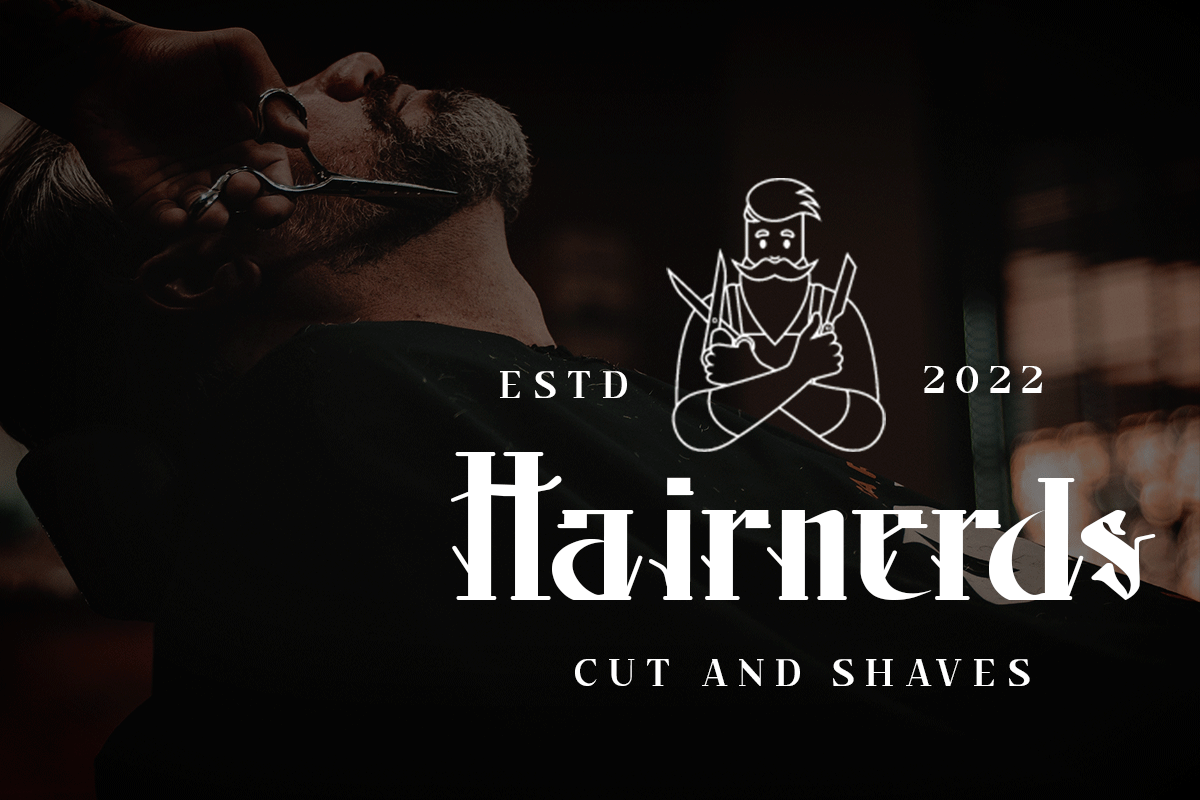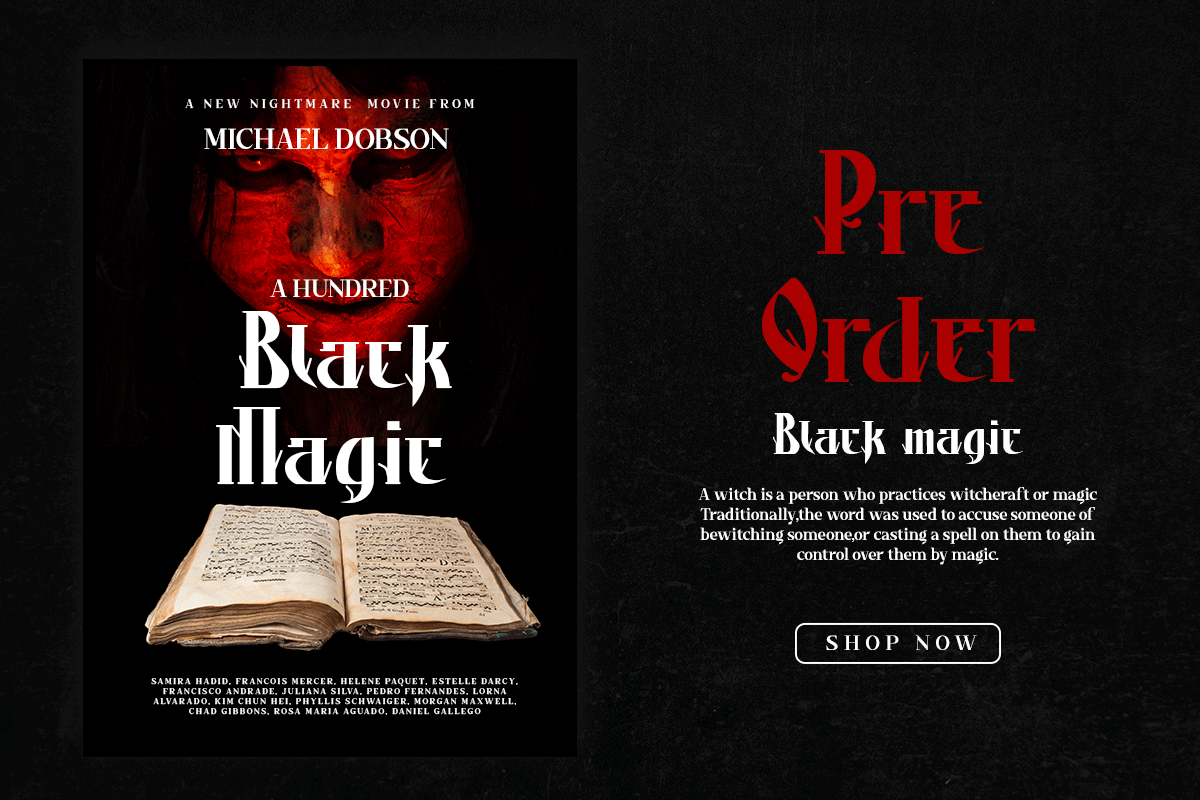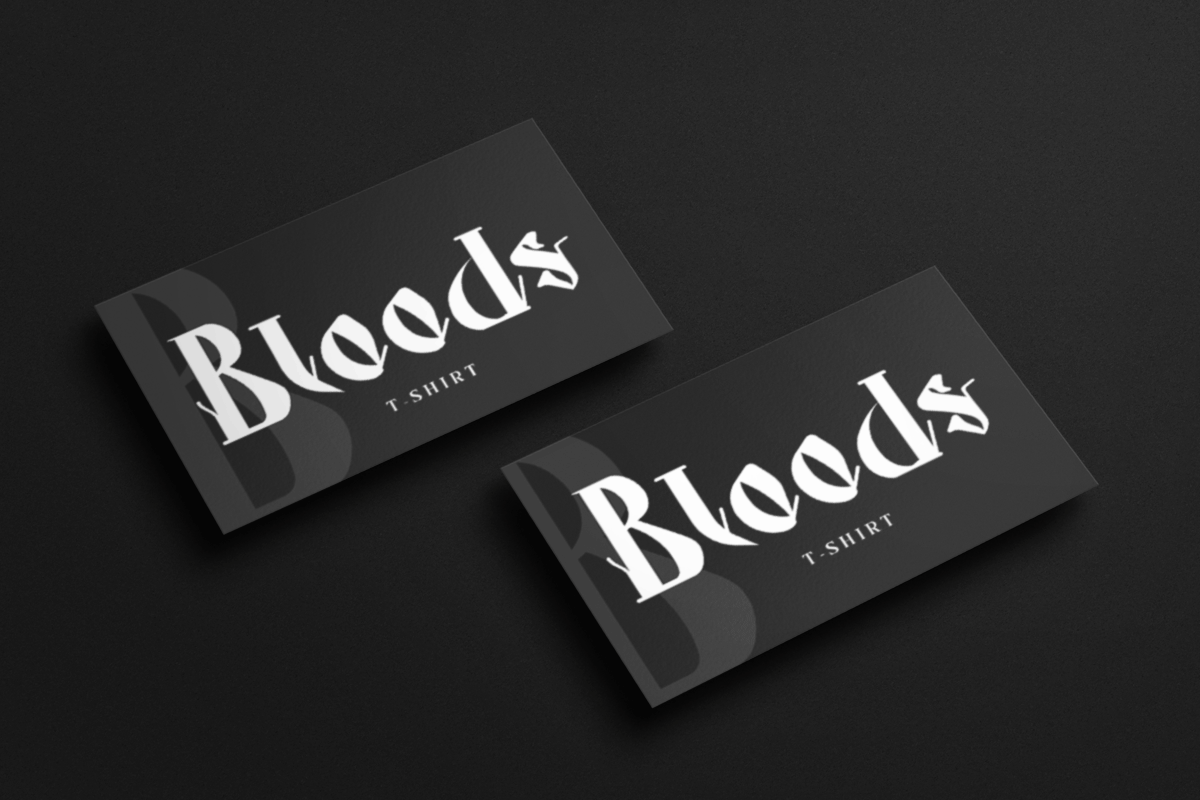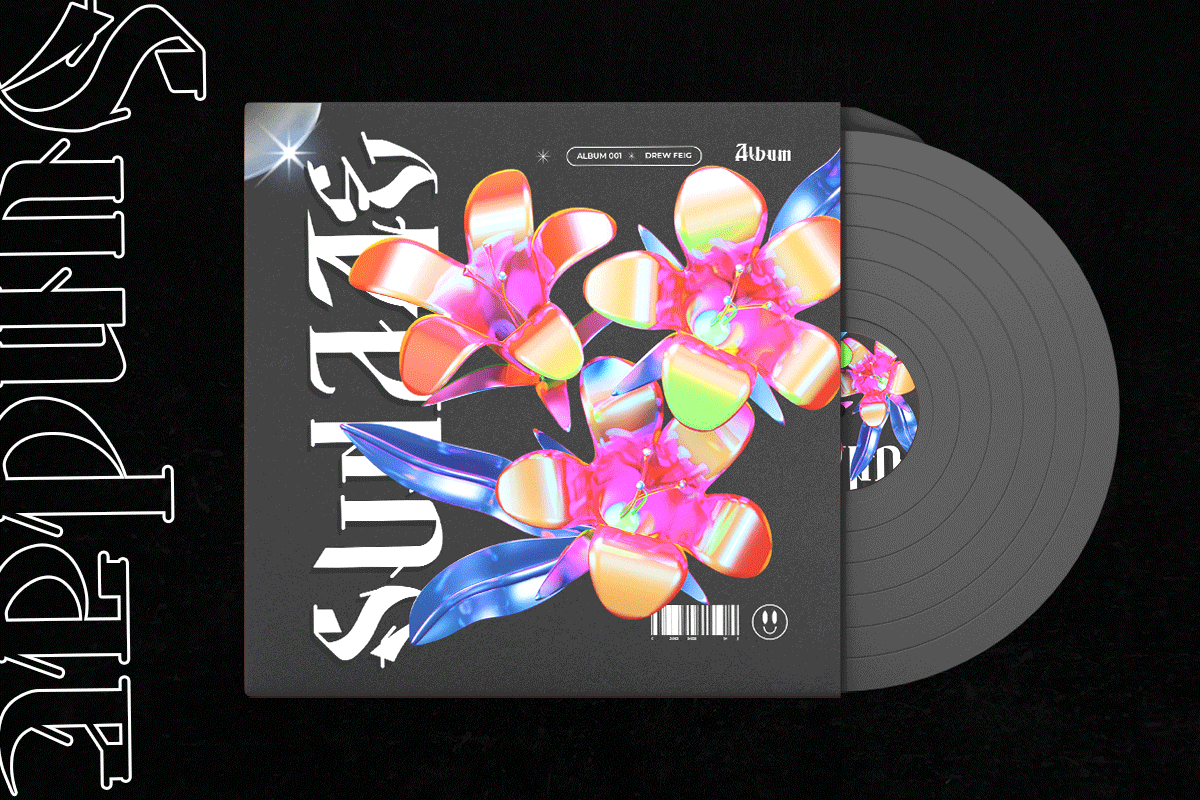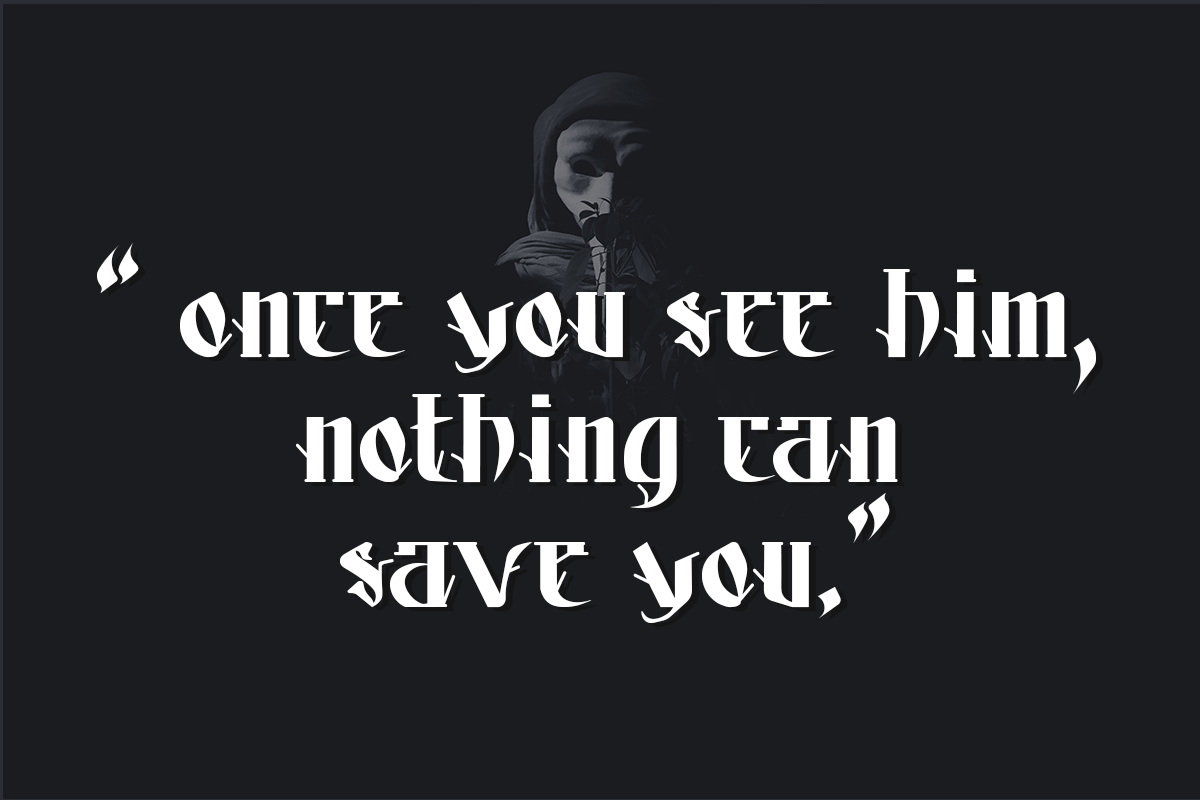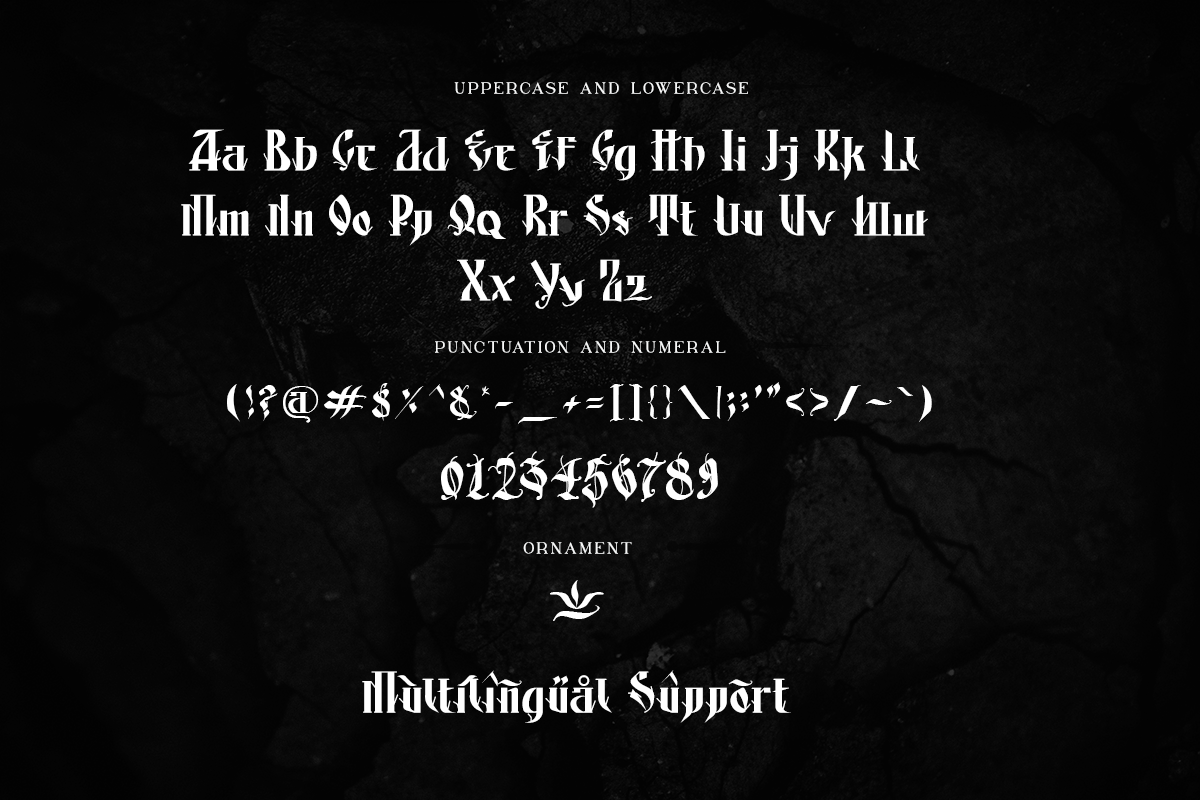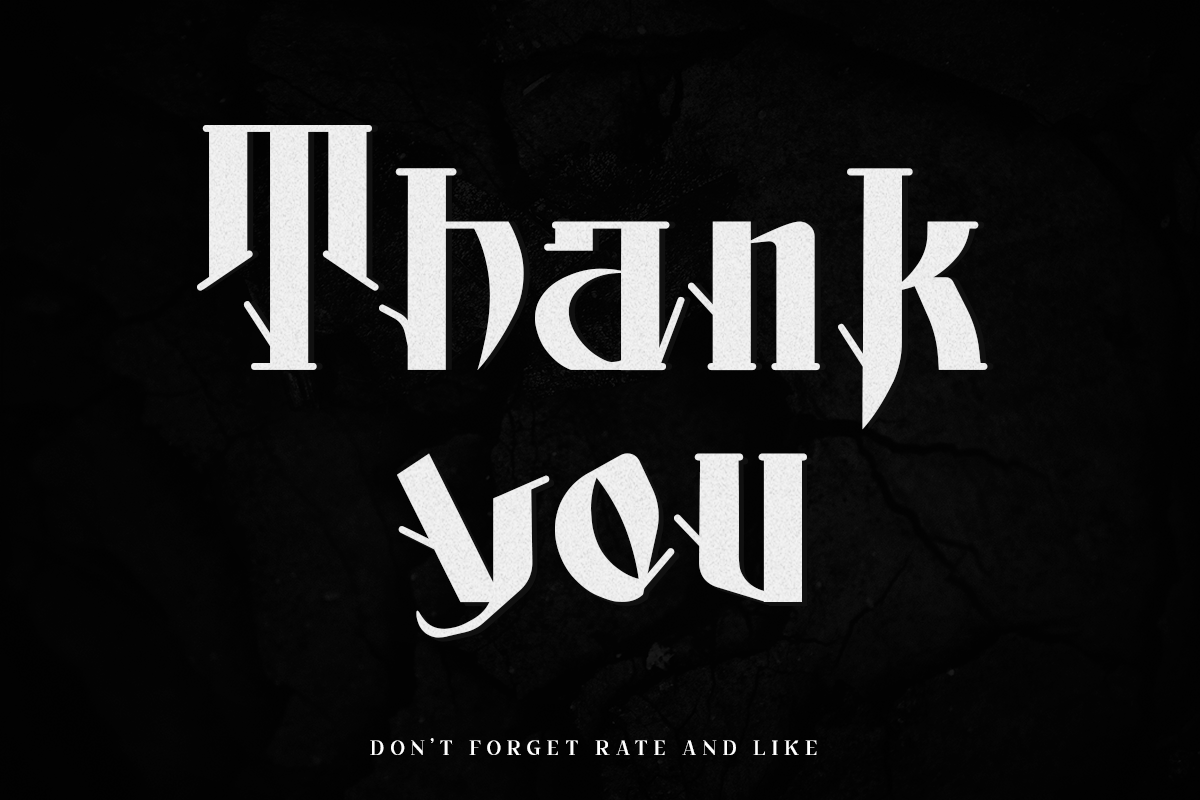
Black Nature Blackletter Font Blackletter font provides many options that you can use according to your needs. The wide variety of fonts created can certainly be applied to digital and print use. Black Nature font is one of the creations of Font Kong and is part of Blackletter Modern Font. It was created with characteristics that show how Blackletter is in general and also coupled with the unique shapes that accompany it. Black Nature font has a characteristic a typographical form that mostly consists of strong and rigid lines, resembling a fence or wooden stick. Besides having a strong and rigid shape, Black Nature is also designed with additional long decorative lines in some parts of the font. When compared to some other blackletter fonts that have a higher level of complexity, Black nature glyphs can be distinguished easily and have a fairly high level of legibility. It can be read and reached by people who see it from near or far. If you look closely, this font has a unique, simple, and clean impression that can add value to Black Nature if seen by anyone. With the characteristics described above, Black Nature is the best font that can be used on posters or announcement boards containing information about nature, especially those that carry important messages or warnings about the condition of our natural environment. Not only that, this font can be used on the cover of mystery books, especially those set in magical lands in the story. To strengthen the mystical impression, don't forget to use dark colors in the accompanying font and background. Another thing that is no less interesting, Black Nature when accompanied by certain images and themes will work well for businesses that target men, such as barbershops, album covers or DVDs, and other similar products. With a high level of readability, it is hoped that the use of the Black Nature font on business boards or the cover of a product can foster interest in anyone who sees it. Surely we can apply this Black Nature with different font sizes according to its use. For your social media needs, you can use and install fonts in our collection of Blackletter fonts to use as Instagram Fonts, Facebook Fonts, and Twitter Fonts. As well as the application of this font, you can use it in several applications, such as Figma fonts, Canva fonts, Freepik fonts, Adobe fonts, Google fonts, Instagram fonts, and Social Media Fonts.